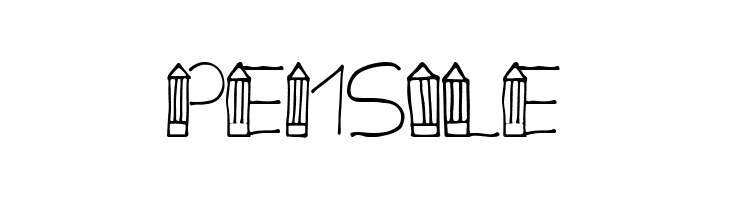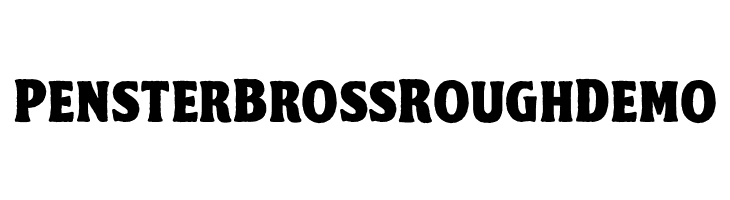
( Fonts by Ditya Ananto )
A playful font with characters designed to resemble pencils, perfect for educational themes.
( Fonts by Letterhend Studio )
A bold, rough-edged font with a vintage, handmade feel.
A bold, textured font with hand-drawn pen stroke aesthetics.
A bold, modern font with strong, thick strokes and a geometric design.
( Fonts by www.houseoflime.com )
A bold, star-patterned decorative font ideal for eye-catching designs.
A bold, modern italic font with dynamic and energetic strokes.